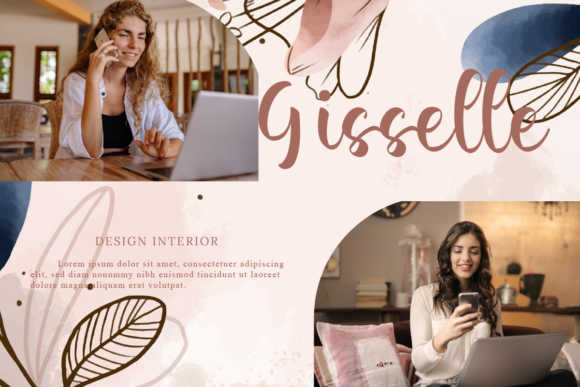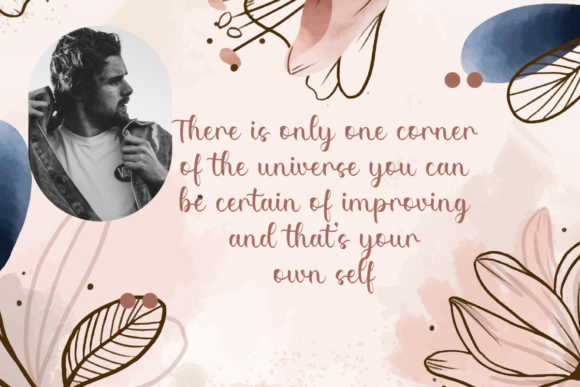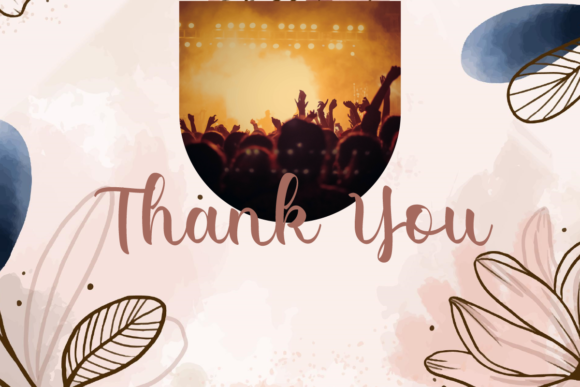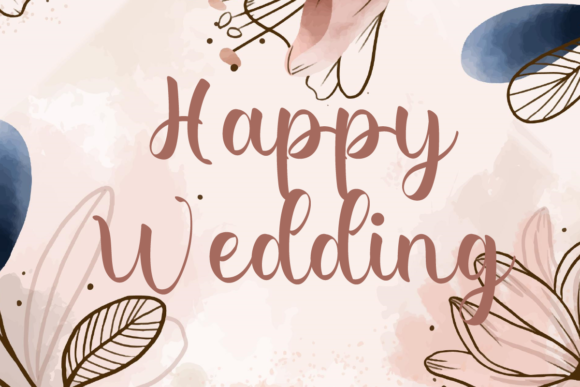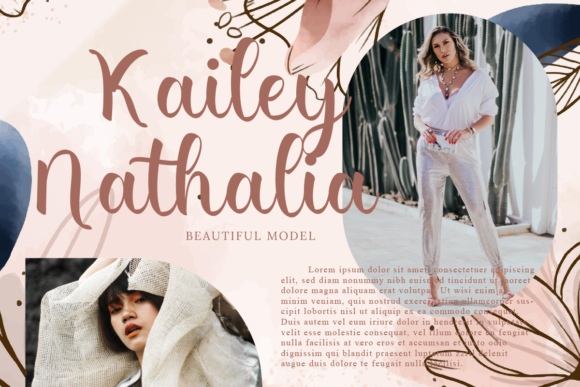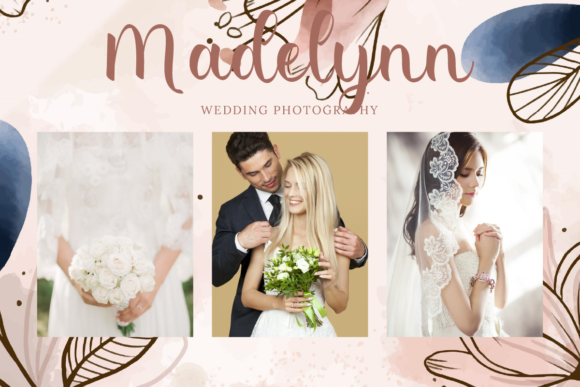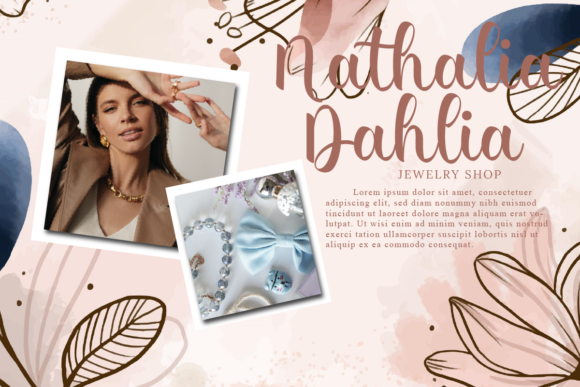
Isabela Josephine Font
About Isabela Josephine Font
Isabela Josephine is a stylish and incredibly elegant script font. It looks stunning on wedding invitations, thank you cards, quotes, greeting cards, logos, business cards and every other design which needs a handwritten touch.